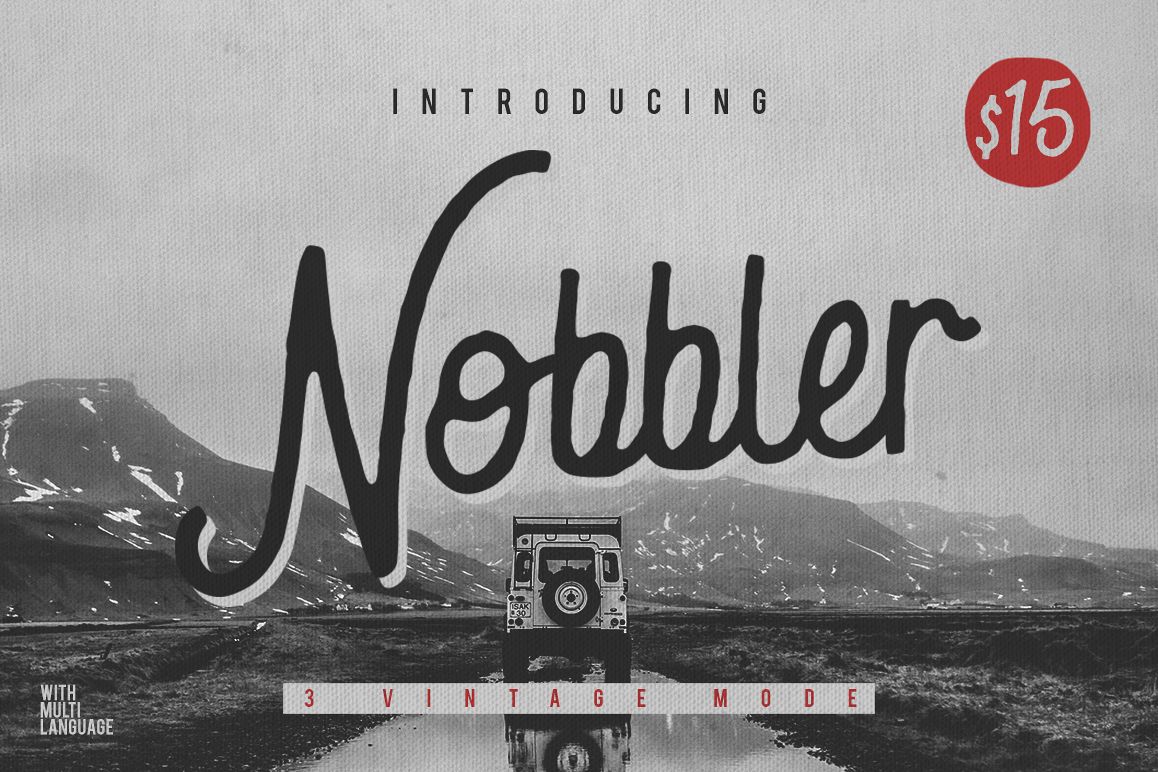
Nobbler Typeface
I hope you can enjoy with this font. Perfect for making design: Badges, posters, a variety of quotes, header, logo design, blog headers, all kinds of covers, T-shirts, mugs, etc.Thanks & Enjoy